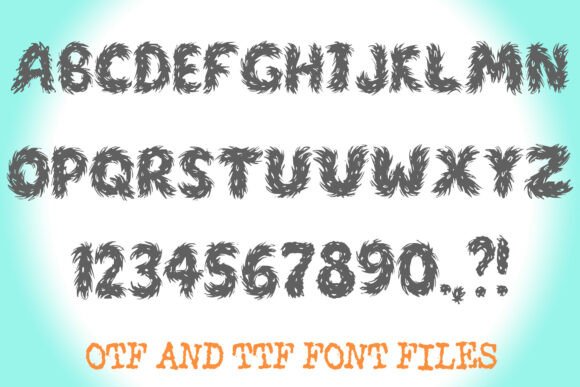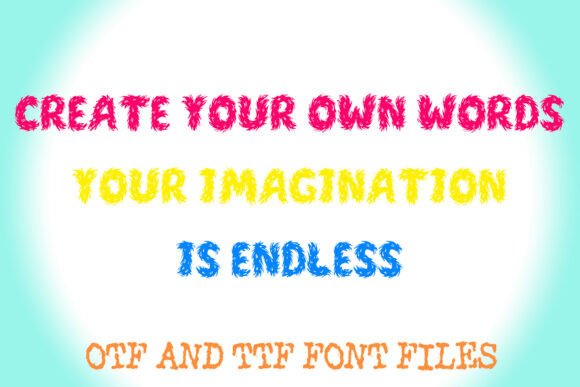
Introducing Fluffy Hair Font: Unleash Your Wild Side with this Whimsical Display Font
Are you tired of using the same old boring fonts in your designs? Do you want to add a touch of fun, texture, and personality to your creative projects? Look no further than Fluffy Hair Font, a bold and playful display font that’s bursting with energy and character. This unique typeface is perfect for designers and crafters who want to make their designs stand out from the crowd.
The Unique Charm of Fluffy Hair Font
Fluffy Hair Font is a hand-crafted, decorative display font that’s been designed to resemble hair that’s been teased and tousled into a wild, furry frenzy. Every letter looks like it’s been styled to perfection, with a unique hairy texture effect that adds a fun and eye-catching style to your designs. The font is full of quirky charm, while maintaining clear legibility, making it perfect for a wide range of creative projects.
Ideal for a Wide Range of Design Projects
Fluffy Hair Font is ideal for designers and crafters who work on a variety of projects, including children’s products, Halloween posters, funky apparel, party invitations, and more. The font’s playful and whimsical style is sure to grab attention and add a touch of personality to any design. Whether you’re designing for print or digital, Fluffy Hair Font is the perfect choice for anyone who wants to add a bit of unruly flair to their work.
Key Features of Fluffy Hair Font
- Uppercase Letters & Numbers: Fluffy Hair Font includes a full set of uppercase letters and numbers, making it perfect for headlines, titles, and more.
- Unique Hairy Texture Effect: The font’s unique hairy texture effect adds a fun and eye-catching style to your designs.
- Fun and Eye-Catching Style: Fluffy Hair Font is designed to be fun and eye-catching, making it perfect for designs that need to stand out.
Fluffy Hair Font is perfect for a wide range of design applications, including:
- Posters: Add a touch of fun and personality to your posters with Fluffy Hair Font.
- Stickers: Create eye-catching stickers with Fluffy Hair Font that’s sure to grab attention.
- Kids’ Designs: Fluffy Hair Font is perfect for kids’ designs, including children’s books, games, and more.
- Halloween Themes: Add a touch of spooky fun to your Halloween designs with Fluffy Hair Font.
Why Choose Fluffy Hair Font?
There are many reasons why you should choose Fluffy Hair Font for your next design project. Here are just a few:
- Unique Style: Fluffy Hair Font has a unique style that’s sure to grab attention.
- High-Quality Design: Fluffy Hair Font is designed to high-quality standards, ensuring that your designs look professional and polished.
If you’re looking for a font that’s bold, playful, and full of energy and character, look no further than Fluffy Hair Font. This unique typeface is perfect for designers and crafters who want to add a touch of fun, texture, and personality to their creative projects. With its hand-crafted, hair-like letterforms and quirky charm, Fluffy Hair Font is sure to grab attention and make your designs stand out from the crowd.